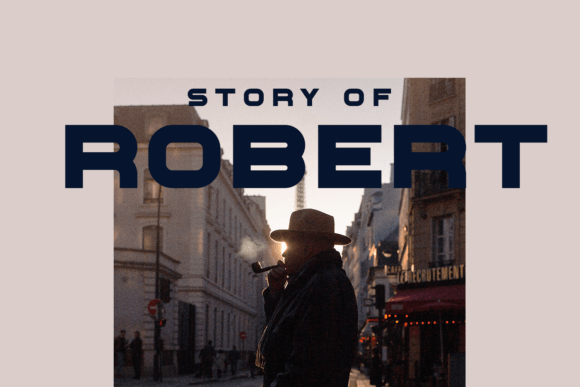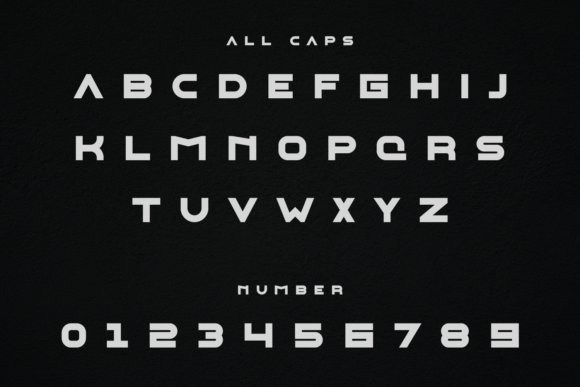
Introduction to Merase Font
Imagine you’re working on a creative project, and you’re trying to find the perfect font to make your design stand out. You’ve spent hours browsing through various design resources, but nothing seems to capture the essence of your idea. That’s when you stumble upon the Merase Font, a unique display font that can elevate your design to the next level.
As a designer, you know the importance of having a high-quality font that can complement your creative vision. The Merase Font is a valuable addition to any design library, offering a transparent background that allows for seamless integration with any design element. With its intricate details and stylish design, this font is perfect for designers who want to add a touch of sophistication to their projects.
Key Features of Merase Font
- High-quality design resource for creative projects, perfect for logos, branding, and more
- Designed with a unique, modern aesthetic, making it perfect for contemporary and minimalist designs
Honest Review: Merase Font
As a designer, I’m always on the lookout for high-quality design resources that can elevate my creative projects. Recently, I had the chance to try out the Merase Font, and I’m excited to share my thoughts.
- ✨ The Merase Font has a sleek and modern design that’s perfect for contemporary projects.
- ✨ The font is highly legible, making it easy to read even at smaller sizes.
- ✨ The transparent background option allows for seamless integration with background images or colors.
- ⚠️ The font is not as versatile as some other options, making it less suitable for projects that require multiple font styles.
Merase Font
Tips for Getting the Most Out of Merase Font
To get the most out of the Merase Font, consider the following tips:
- Experiment with different font sizes and styles to create a unique look.
- Combine the Merase Font with other design elements to create a cohesive design.
The Merase Font is commonly used in various design projects, including:
- Business cards and marketing materials.
- Web design and development.
- Print design and publishing.